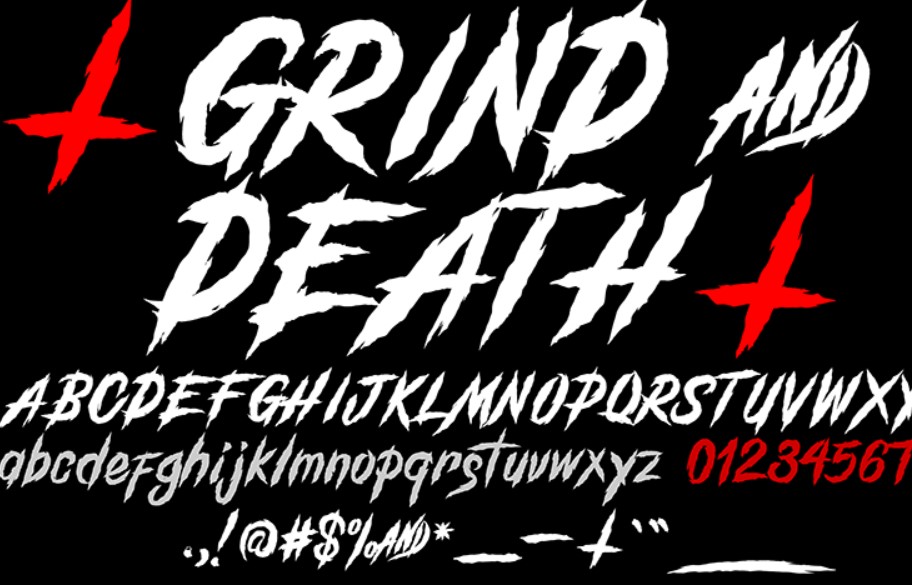
Introducing the modern and stylish handwritten typeface known as Grind and Death Font, created by Knackpack Studio. This font offers a wide range of features including ligatures, glyphs, textures, and both uppercase and lowercase characters. Easily download and install this beautiful display font to elevate your designs.
The font has sketchy typeface that has pure and polished typeface which fulfills your requirement to designs your projects. The font maker puts great texture in this font.